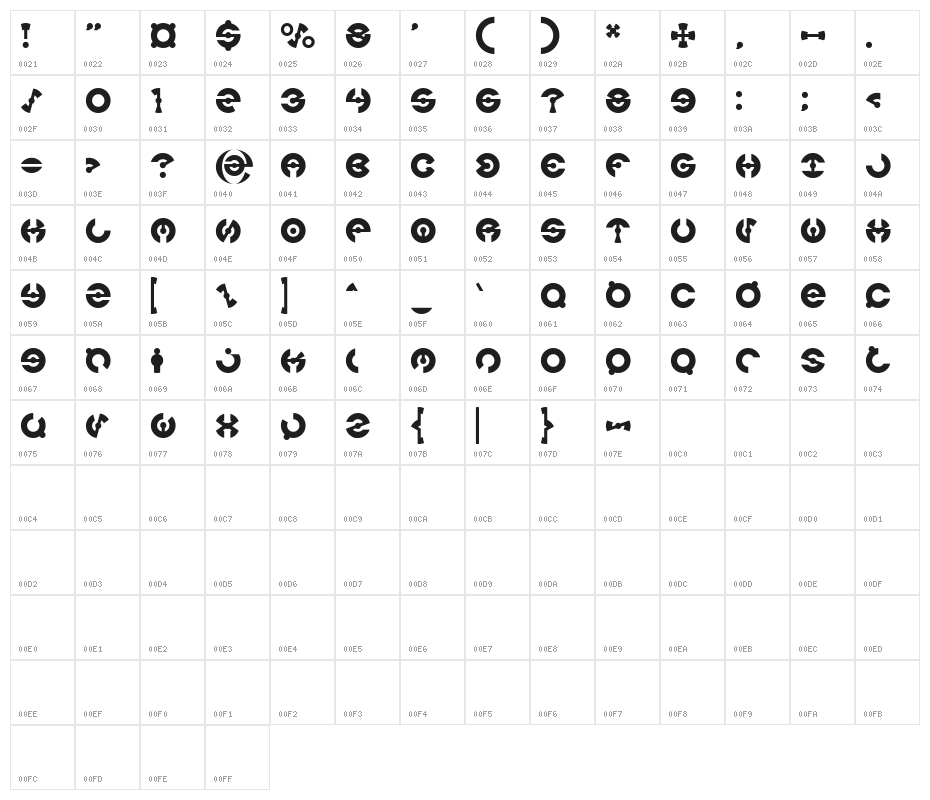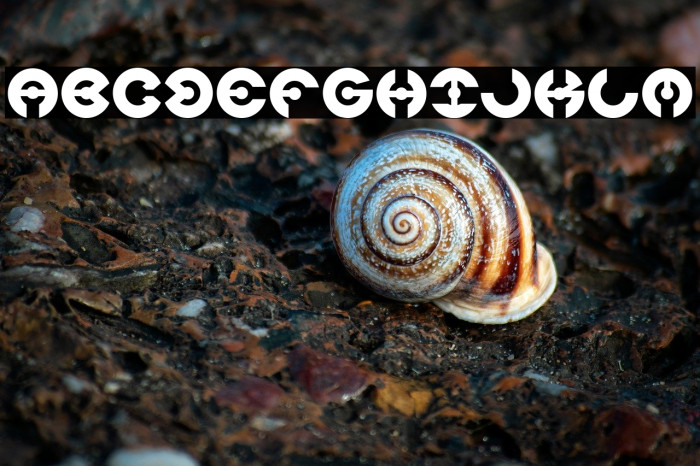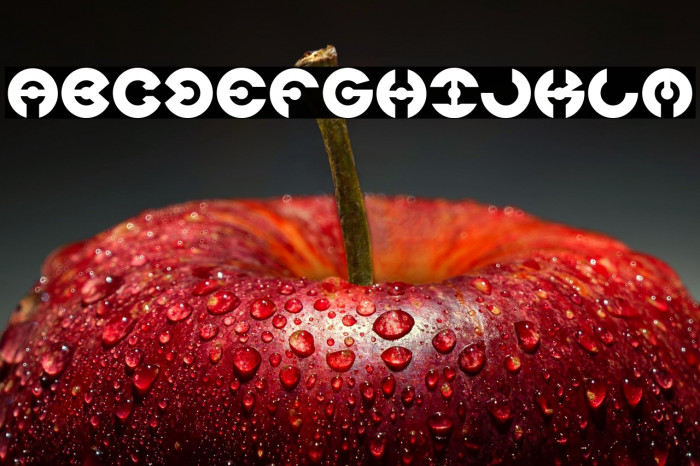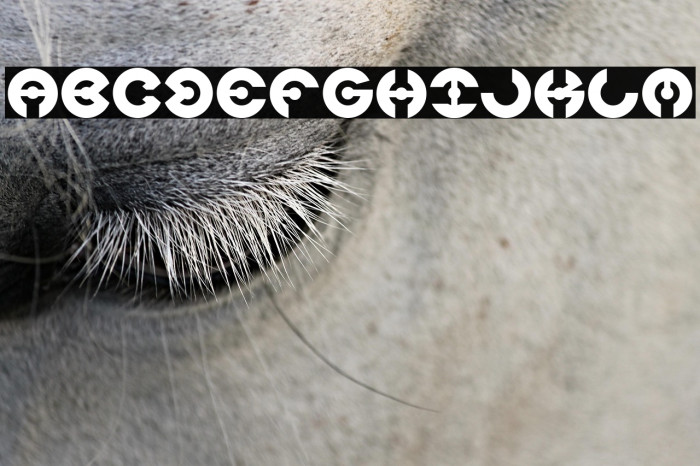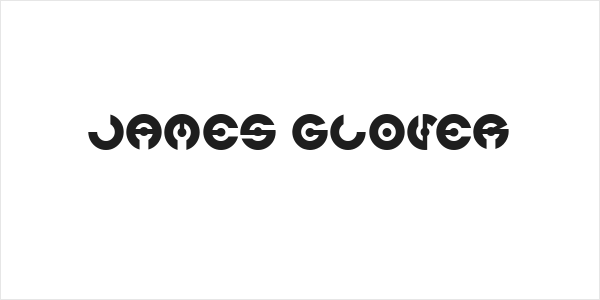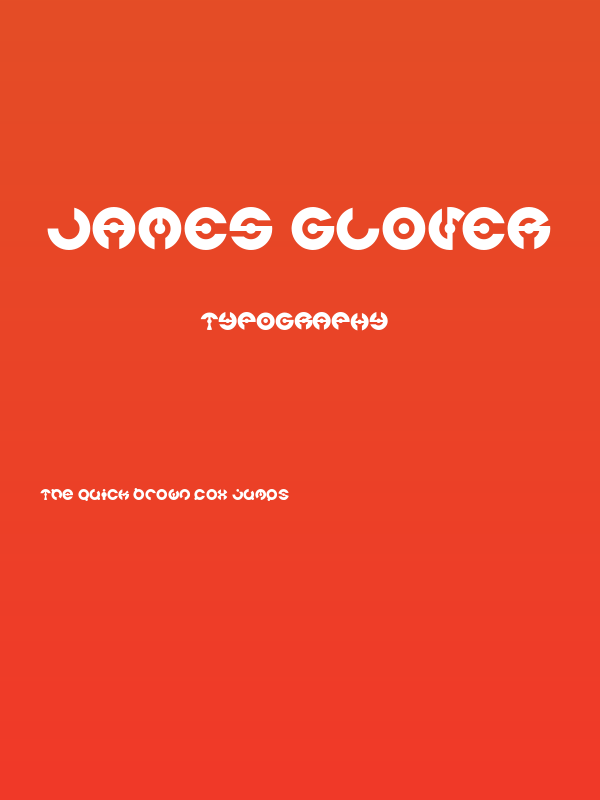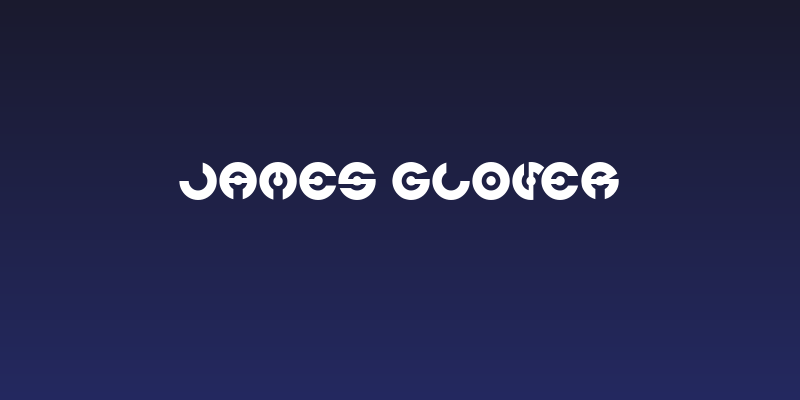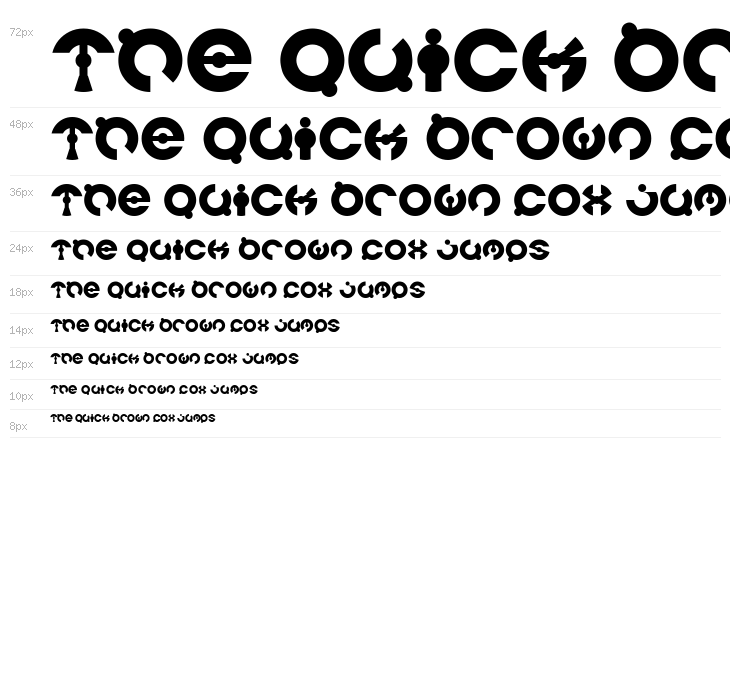
JAMES GLOVER Font
JAMES GLOVER Description
This font features a bold, geometric design with a futuristic and abstract aesthetic. Each character is crafted with a unique circular motif, incorporating solid, thick strokes that create a sense of symmetry and balance. The letters and numbers are distinct, with a consistent use of negative space that adds to the overall modern and avant-garde appearance. The special characters maintain this theme, offering a cohesive look across the entire set. This font is ideal for projects that require a strong visual impact and a contemporary feel.